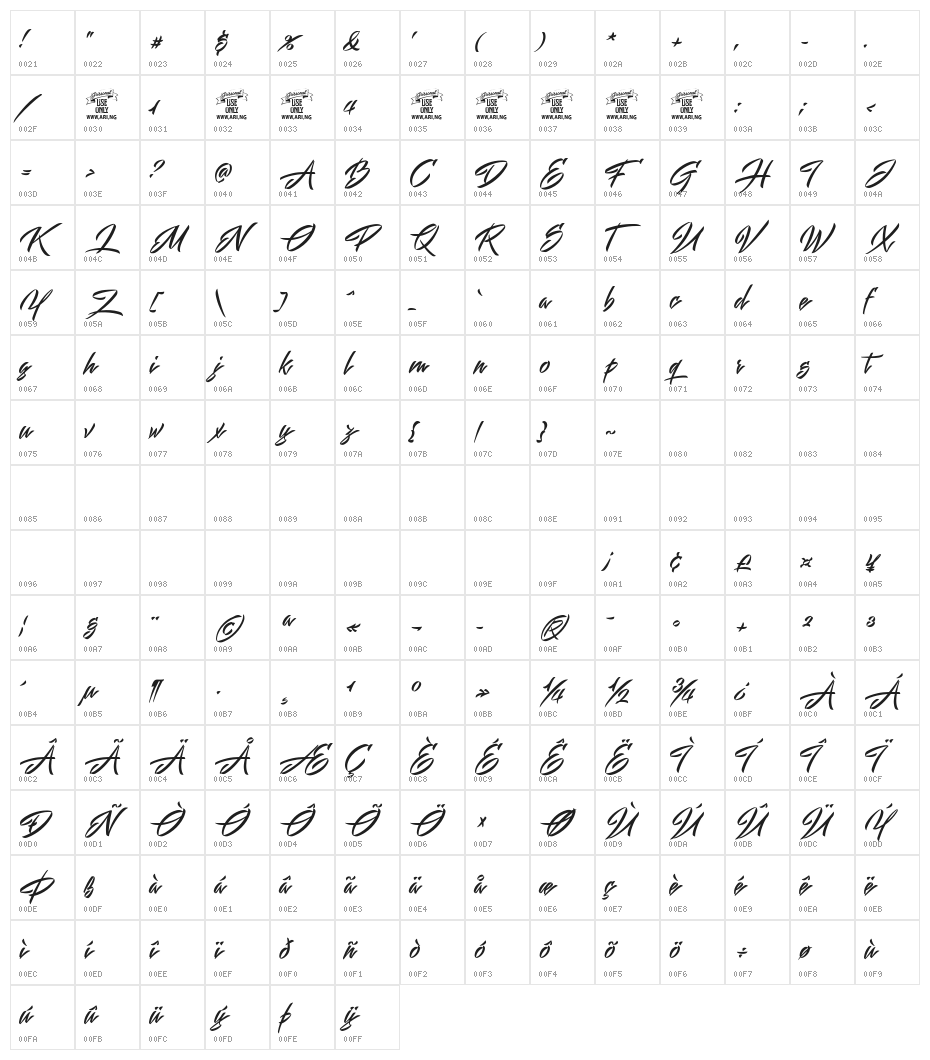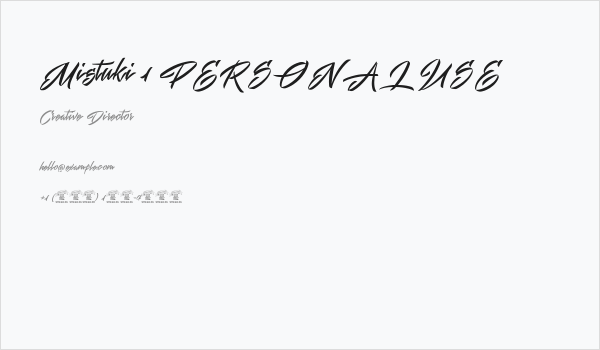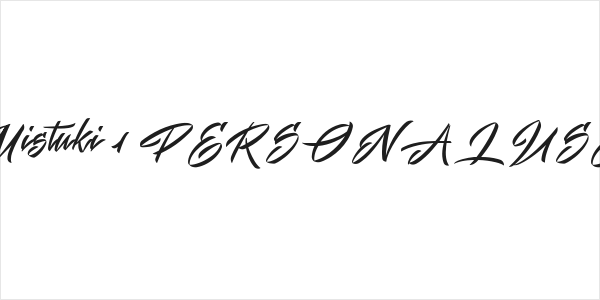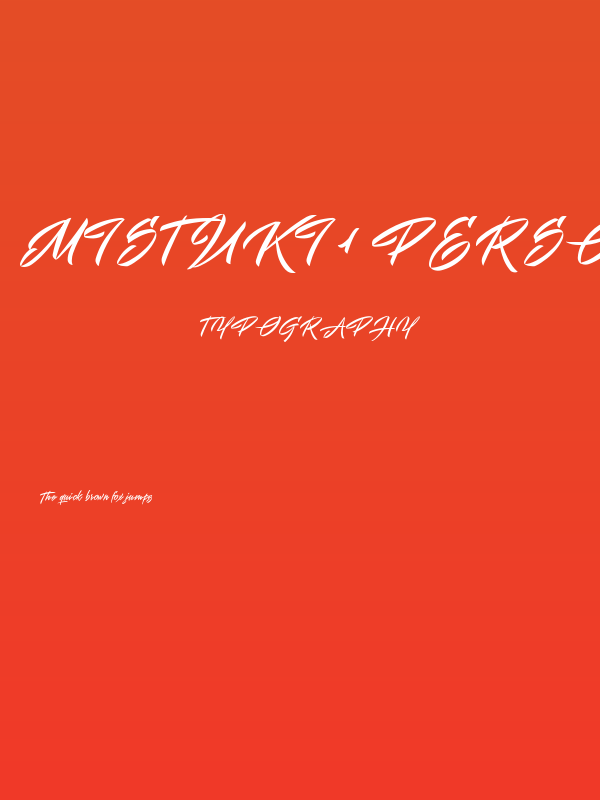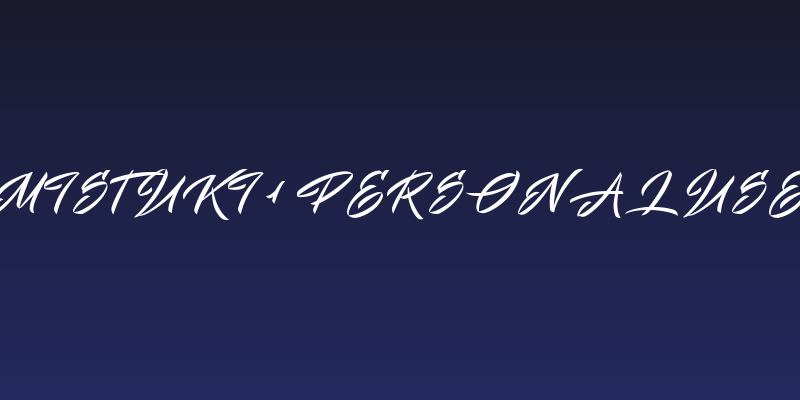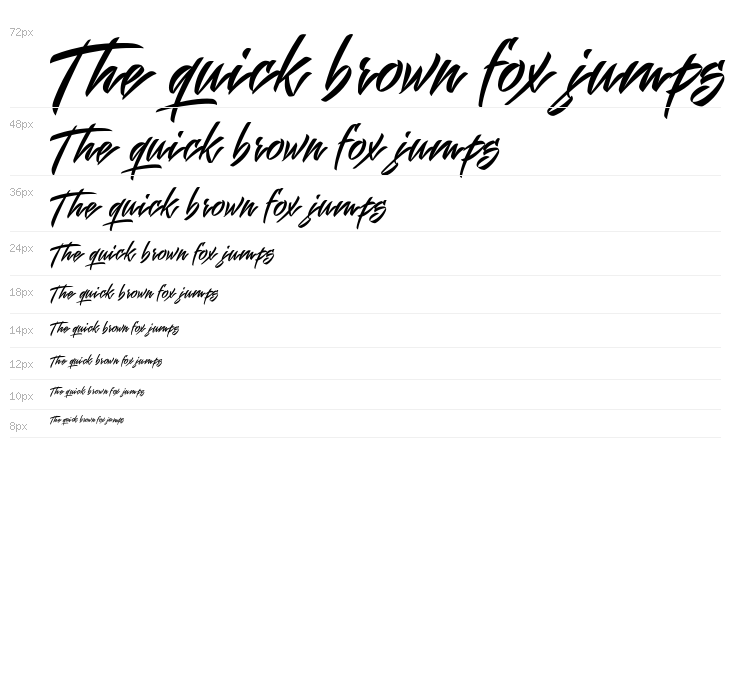
Mistuki 1 PERSONAL USE Font
Mistuki 1 PERSONAL USE Description
This font exhibits a dynamic and expressive script style, characterized by its fluid, cursive strokes and elegant flair. The uppercase letters are bold and sweeping, with a sense of movement that suggests a handwritten touch. The lowercase letters maintain a consistent flow, enhancing readability while preserving the artistic quality. The numerals and special characters integrate seamlessly, maintaining the overall aesthetic. This font is ideal for projects that require a personal, artistic touch, such as invitations, branding, and creative design work.
| Proposed Projects | Ideal for invitations, branding, creative design, and personal projects. |